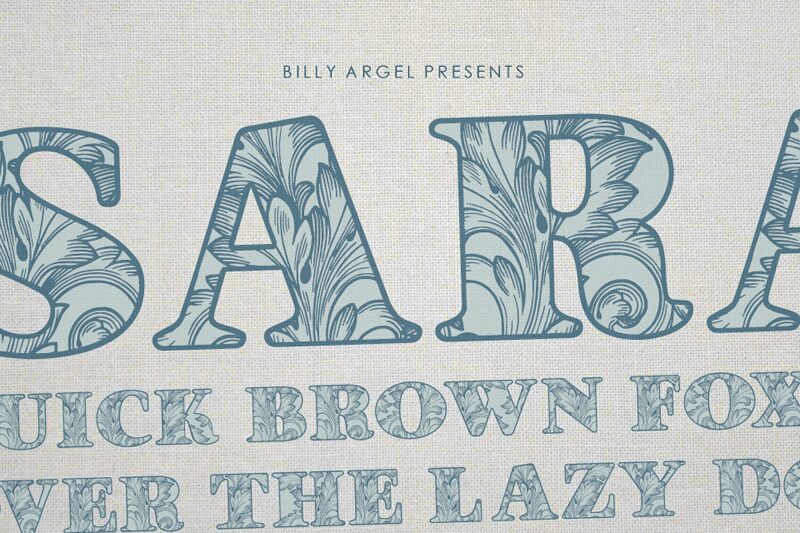
SARAH is a stunning display font from the renowned designer Billy Argel Fonts. With its extra-bold weight and semi-expanded width, SARAH is perfect for creating eye-catching headlines, logos, and posters that demand attention. Its decorative style adds a touch of elegance to any design project, making it ideal for use in fashion magazines, beauty blogs, and luxury brands. Whether you're designing a wedding invitation or advertising a high-end product line, SARAH will elevate your work with its unique flair and bold presence. Try it out today and experience the power of this unforgettable typeface!
Layered SVG font.